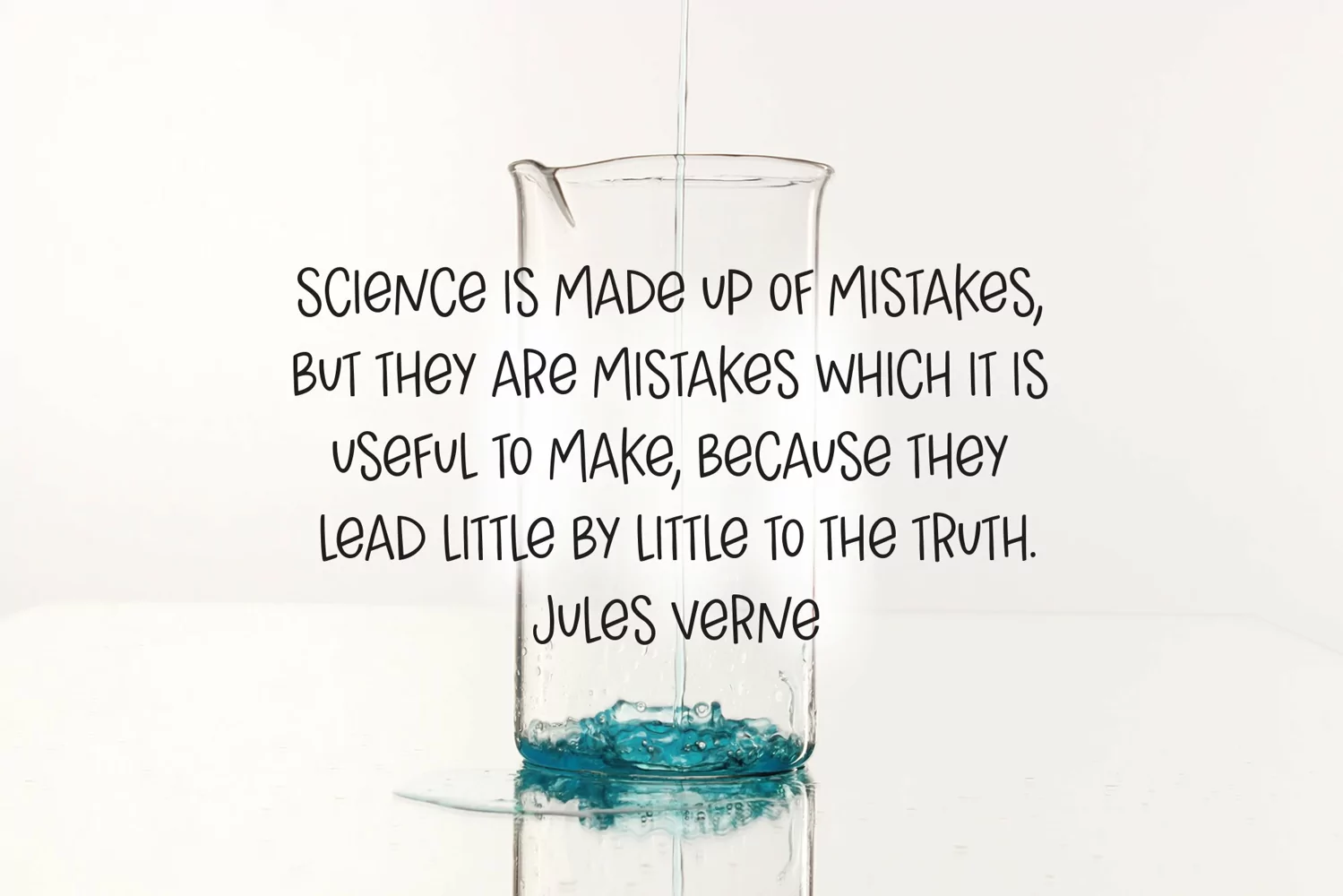
Jules Thicket, a wonky caps font
Jules Thicket is a wonky caps font, with kicky angles. Mix and match caps and lowercase letters to create a unique hand-lettered look in your designs.
It has language support for Western European languages.